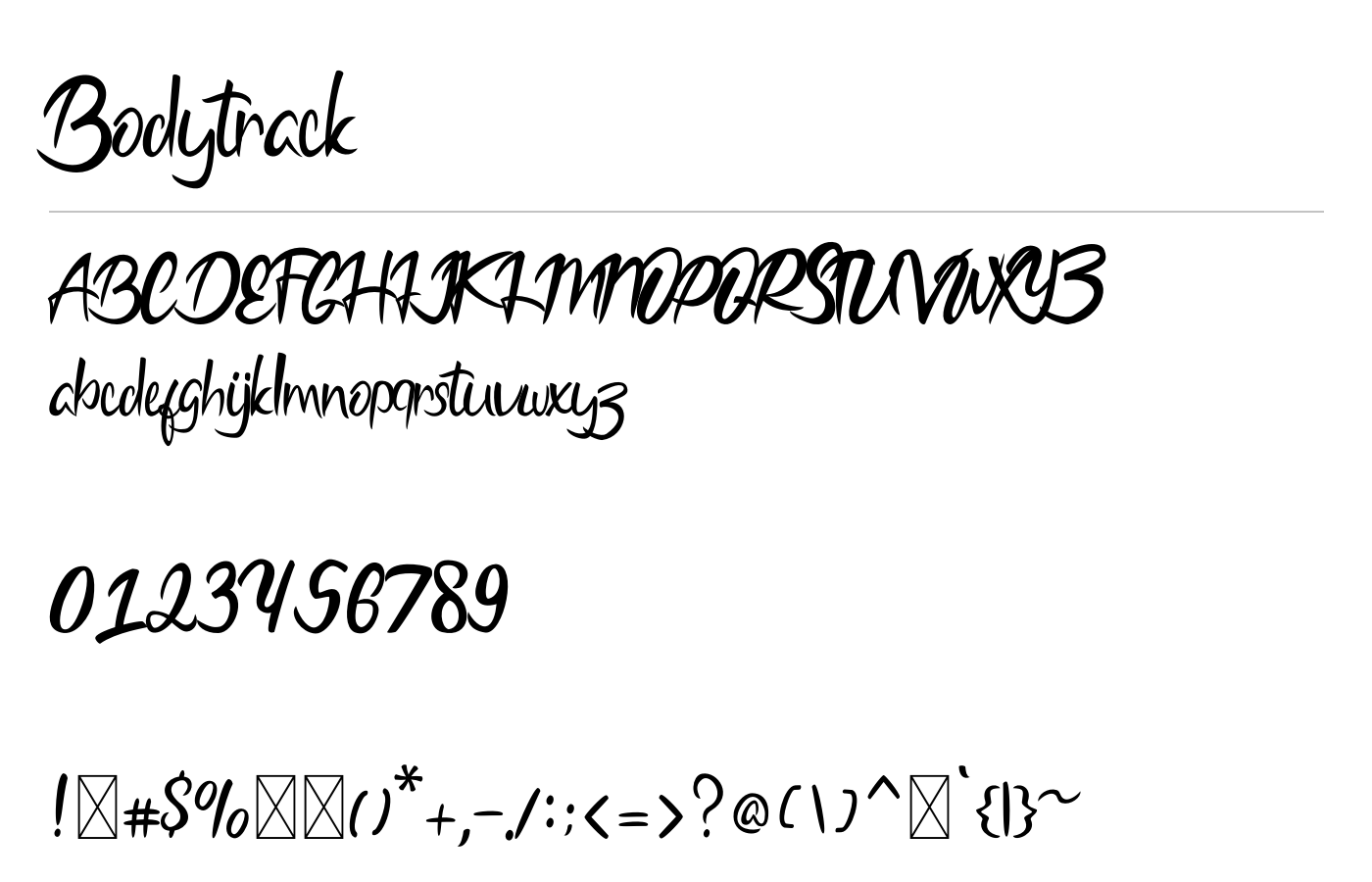
Bodytrack is a casual, handwritten script font with a lively and dynamic feel. Its varying stroke widths and slightly irregular letterforms evoke a playful yet stylish personality, making it ideal for creative branding, invitations, and informal headlines where a personal, energetic touch is desired.
Bodytrack Font